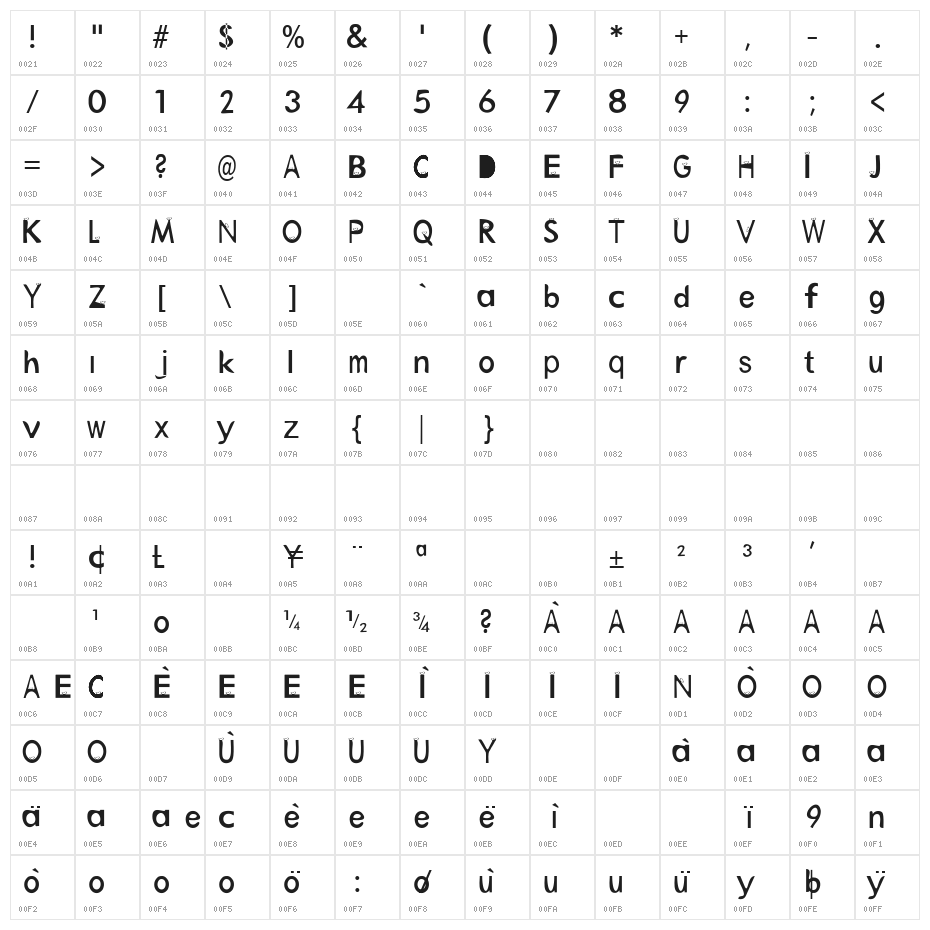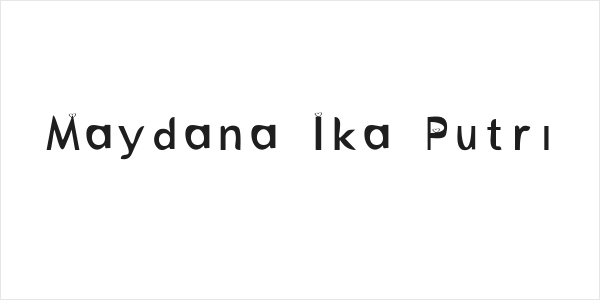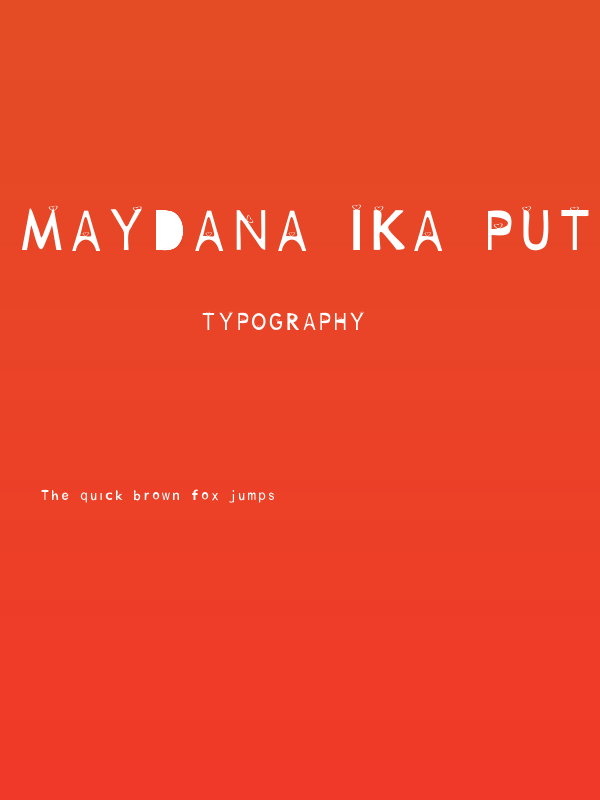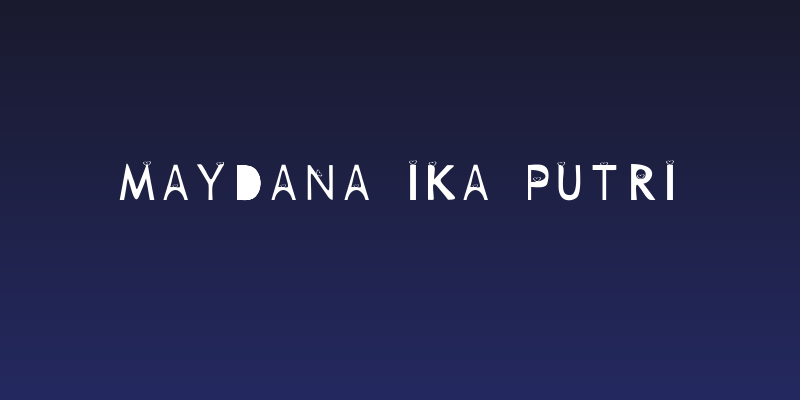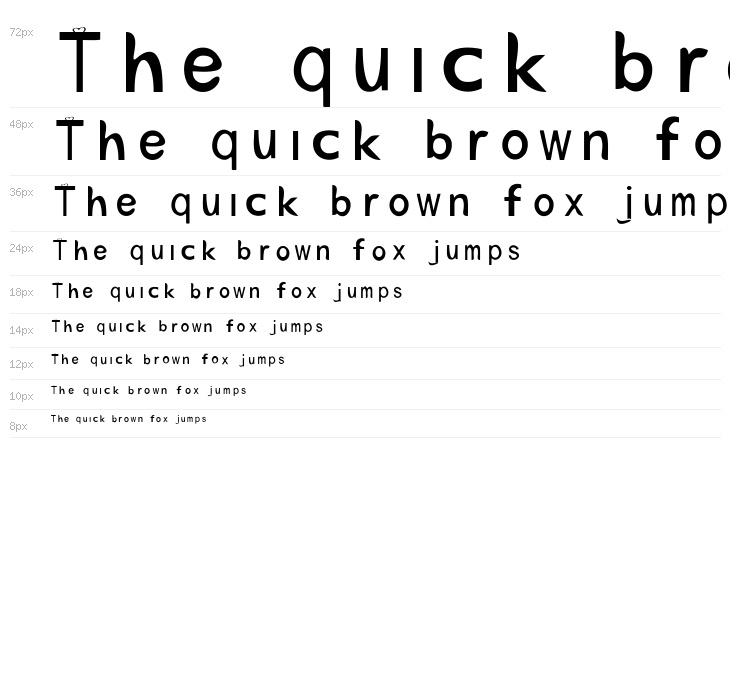
Maydana Ika Putri Font
Maydana Ika Putri Description
This playful and decorative font features a unique design with small heart motifs incorporated into certain letters, adding a whimsical touch. The uppercase letters are bold and distinct, with some characters having a solid fill, while others have cut-out sections. The lowercase letters maintain a consistent style, offering a clean and modern look. The numerals are straightforward and easy to read, complementing the overall design. Special characters are included, maintaining the playful theme. This font is ideal for creative projects that require a fun and engaging typeface.
| Overall Style | Playful, Modern, Decorative |
| Proposed Projects | Ideal for greeting cards, children's books, playful branding, and event invitations. |